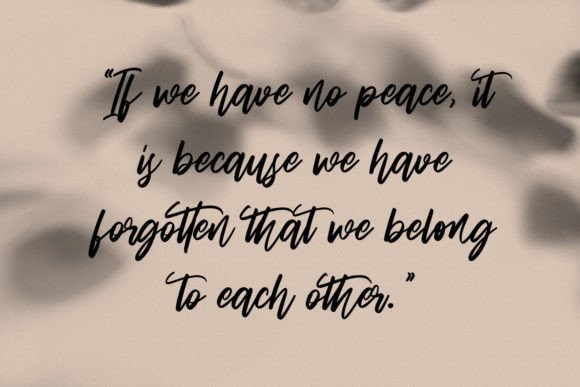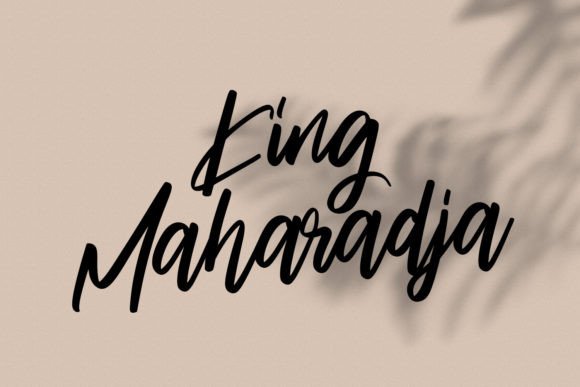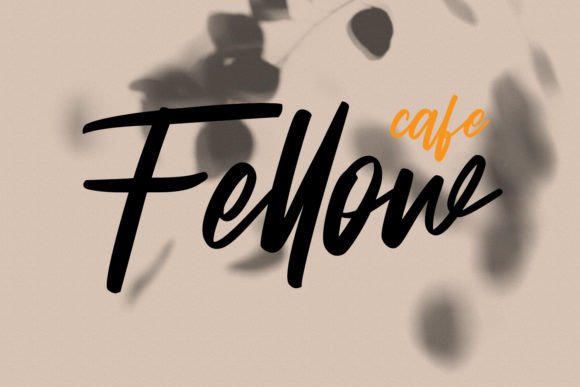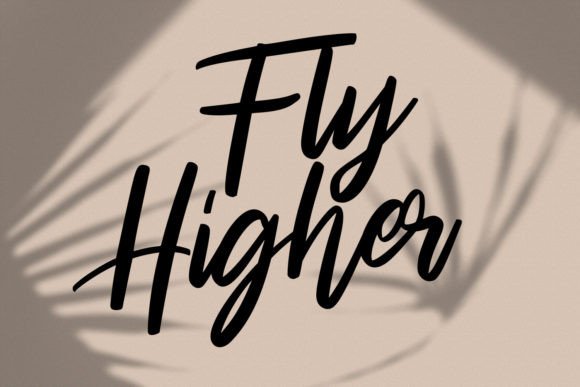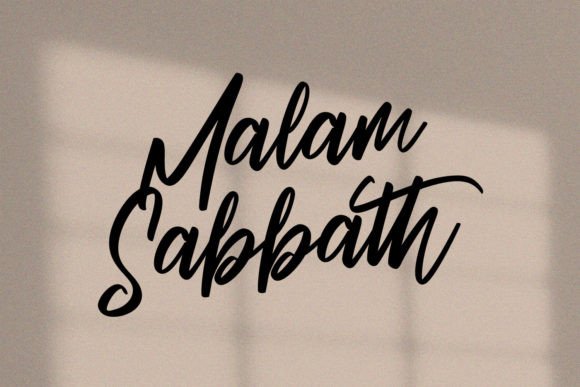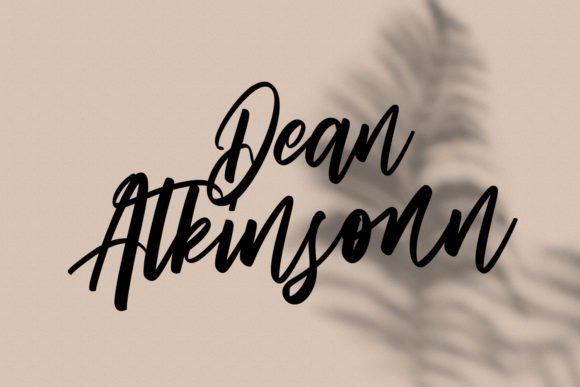
Cafellis Font: Elevate Your Designs with Elegance and Sophistication
In the world of typography, a well-crafted font can make all the difference in elevating your designs to new heights. Introducing Cafellis, a stunning handwritten script font that seamlessly blends classic calligraphic influences with a modern twist. This exquisite font is poised to become your new favorite, and for good reason. With its elegant strokes, fluid movements, and contemporary feel, Cafellis is the perfect addition to any design project.
The Art of Cafellis: A Masterful Design
Cafellis is more than just a font – it’s an art form. Its creator has poured their heart and soul into crafting a truly unique and captivating typeface. The result is a font that exudes sophistication, poise, and refinement. Whether you’re working on a luxury brand, a high-end product, or a creative project, Cafellis is sure to impress. Its elegant calligraphic influences evoke a sense of tradition, while its modern sensibilities ensure it feels fresh and current.
What Makes Cafellis So Special?
So, what sets Cafellis apart from other fonts? Here are just a few reasons why this font is a cut above the rest:
- Unique Character: Cafellis boasts a distinct personality that shines through in every letter. Its curves, swashes, and strokes are meticulously designed to create a cohesive and visually appealing aesthetic.
- Versatility: This font is incredibly versatile, making it suitable for a wide range of design applications, from logos and branding to packaging, posters, and digital media.
- Legibility: Despite its ornate nature, Cafellis remains surprisingly legible, even at smaller sizes. This makes it perfect for use in body text, headlines, or titles.
- Customization: With its extensive character set and swash features, Cafellis offers endless opportunities for customization. Experiment with different combinations to create a truly unique look.
Who Can Benefit from Cafellis?
Cafellis is an excellent addition to any designer’s toolkit, regardless of their niche or specialty. Here are some professionals who can benefit from this exceptional font:
- Graphic Designers: Add a touch of elegance to your branding, packaging, and advertising projects.
- Stationery and Journal Designers: Create beautiful, high-end journals, stationery sets, and planners.
- Web and UI Designers: Elevate your website and app designs with a sophisticated, modern font.
- Crafters and Makers: Use Cafellis to add a personal touch to your handmade products, labels, and packaging.
Tips for Using Cafellis Effectively
To get the most out of Cafellis, here are some expert tips:
- Pair it with a sans-serif font: Combine Cafellis with a clean, modern sans-serif font to create a striking contrast.
- Experiment with swashes: Don’t be afraid to try out different swash combinations to add flair to your designs.
- Use it sparingly: While Cafellis is beautiful, it’s best used in moderation. Balance it with other fonts to avoid overwhelming your design.
Cafellis is a game-changing font that can instantly elevate your designs to new heights. With its masterful design, unique character, and versatility, it’s an excellent addition to any designer’s arsenal. Whether you’re a seasoned pro or just starting out, Cafellis is sure to become a favorite. So why wait? Fall in love with Cafellis and bring your projects to the highest levels!